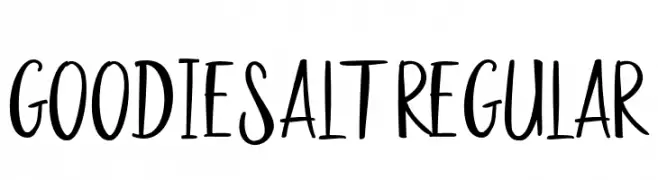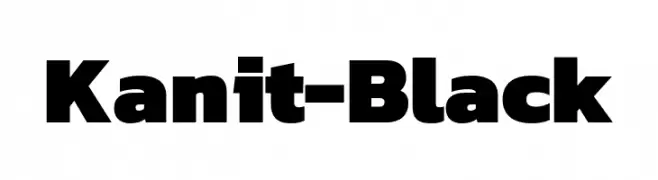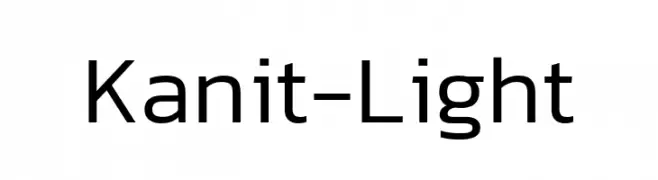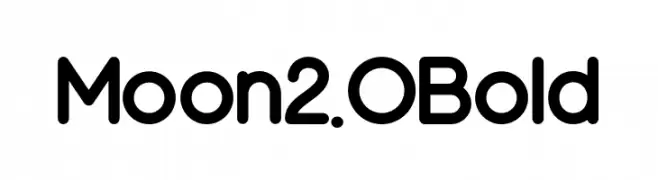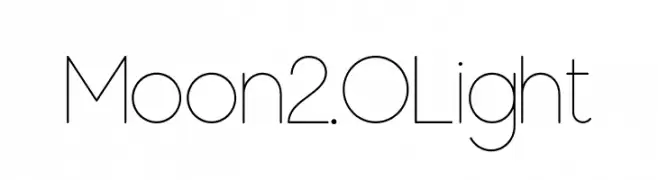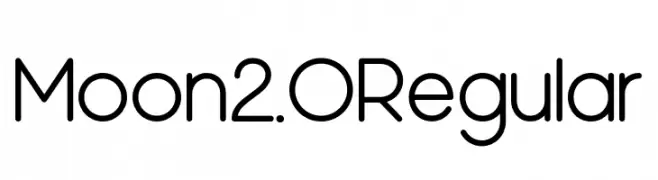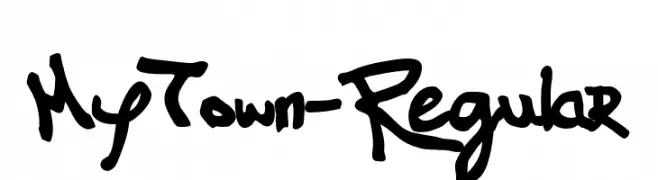
A modern, geometric sans-serif font with balanced spacing and clear readability.
A bold, modern font with strong geometric shapes and consistent stroke widths.
A modern, thin sans-serif font with a geometric and minimalist design.
A bold, graffiti-inspired font with dynamic, hand-drawn strokes.
A bold, rounded font with a modern and approachable style.
A modern, geometric font with a minimalist and sleek design.
A clean, geometric font with rounded edges and consistent stroke width.
A graceful script font with fluid, interconnected strokes and elegant curves.
A playful, hand-drawn font with tall, narrow letters and a whimsical style.
A modern, cursive font with a natural handwritten style.